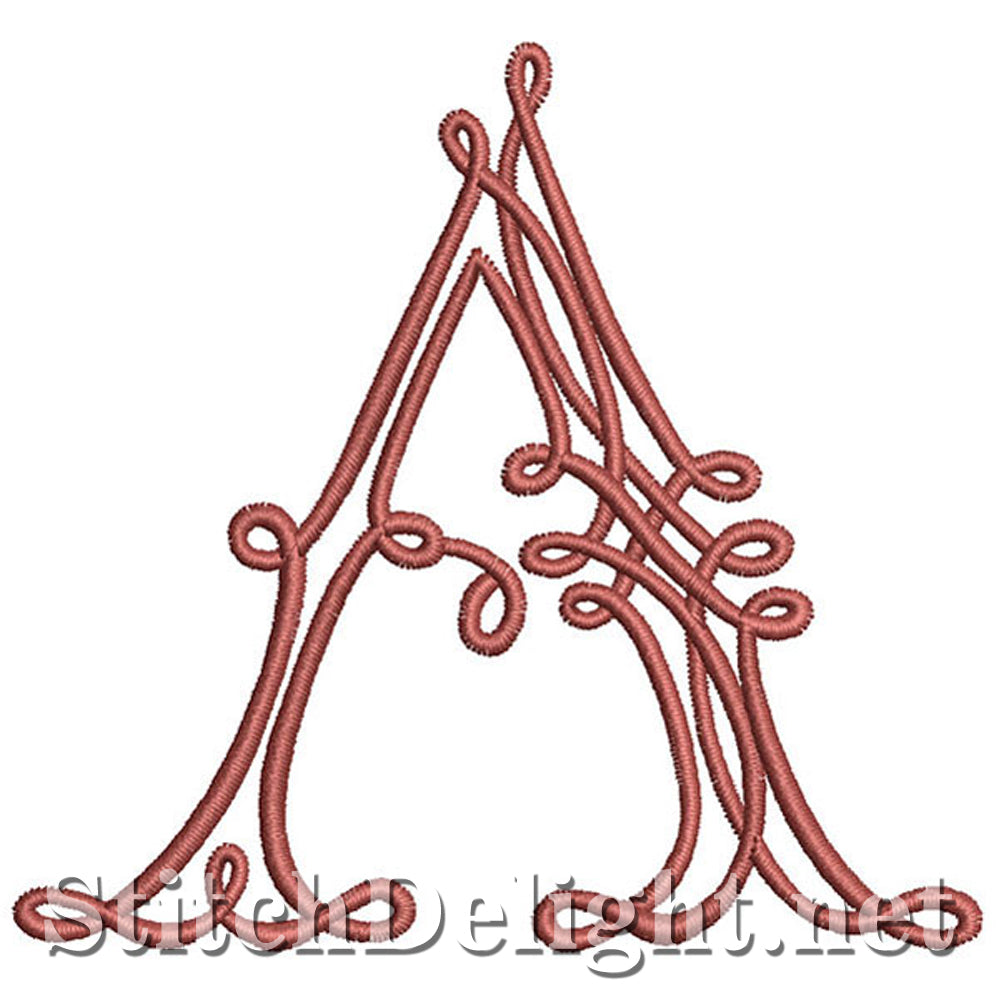
Detailed Celtic font mostly for the 4x4 hoop, M,W and Q are a tad larger so be sure to check the sizes to make sure it will fit in your stitch area - Letter height is 85mm / 3.34 inch